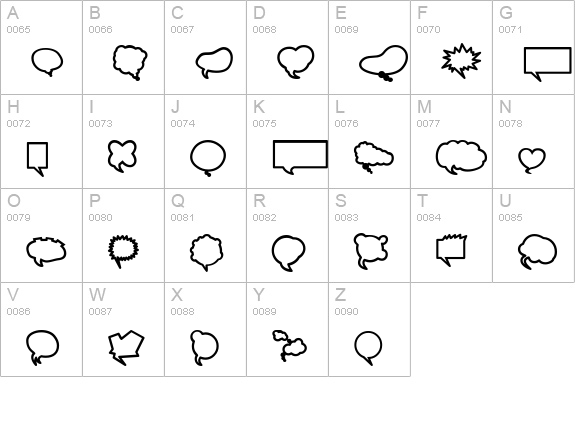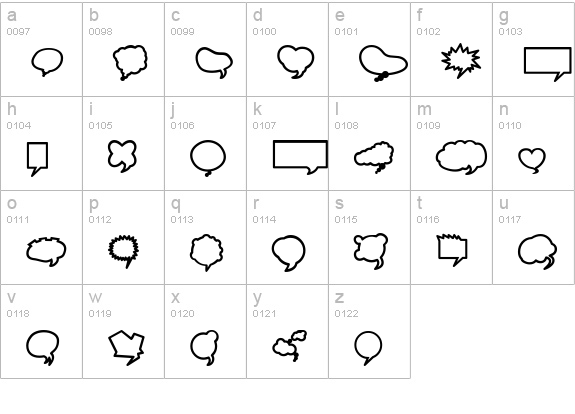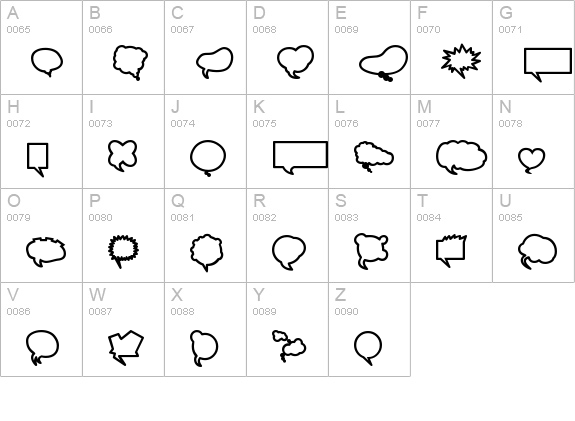
Mini Pics Balloonies Bold is a strong, high-contrast variant in the Mini typeface family \xE2\x80\x94 well suited to headlines, attention-grabbing titles, and strong calls-to-action.
Mini Pics Balloonies Bold font is a playful and whimsical typeface that exudes a sense of fun and creativity. Its bold and bubbly characters are perfect for adding a touch of joy to your designs. With its unique balloon-like shapes, this font is sure to make a statement and capture attention. And the best part? Mini Pics Balloonies Bold font is freely available to download at FontsMarket.com! So whether you're working on a party invitation, a children's book, or any other project that calls for a touch of cheerfulness, this font is the perfect choice. Let your creativity soar with Mini Pics Balloonies Bold font!